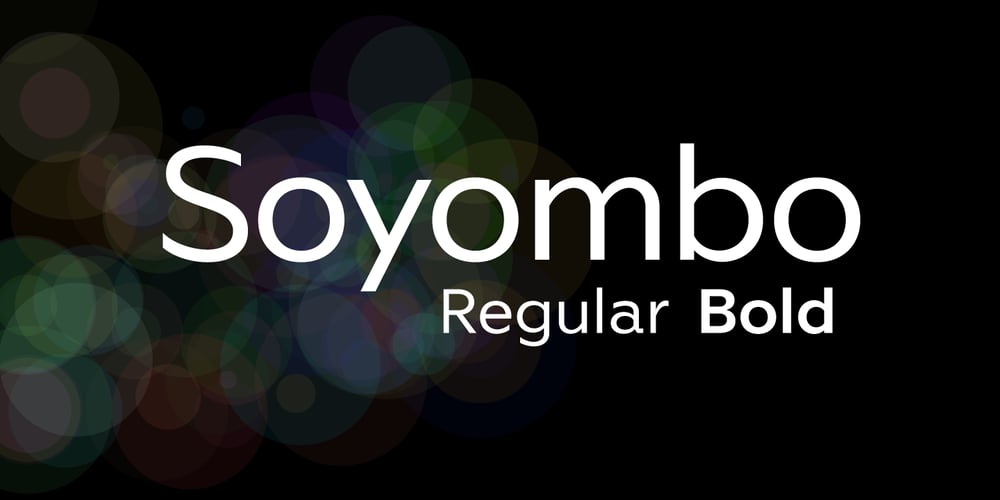
Soyombo
Soyombo font
Soyombo Font Family was designed by Valery Golyzhenkov and published by Letterhead Studio-VG. Soyombo contains 2 styles and family package options. Geometric Sans for any use. Strong, modern, new.